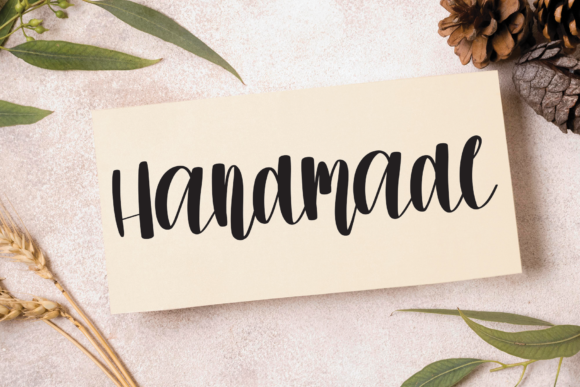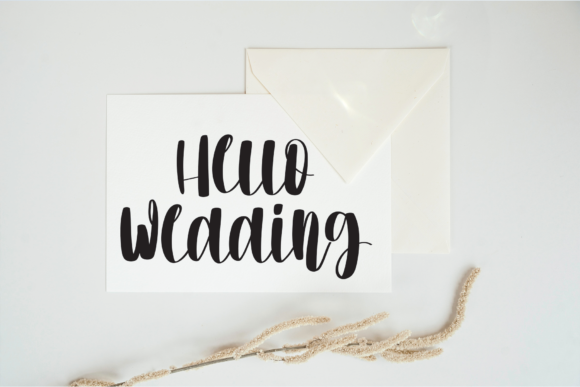
Winter Wind Font
db-ku.com - Script & Handwritten -- Winter Wind is a feminine calligraphy font that you can use for invitations, cards, product tags, quotes, branding, magazines, fashion, clothing, and much more!